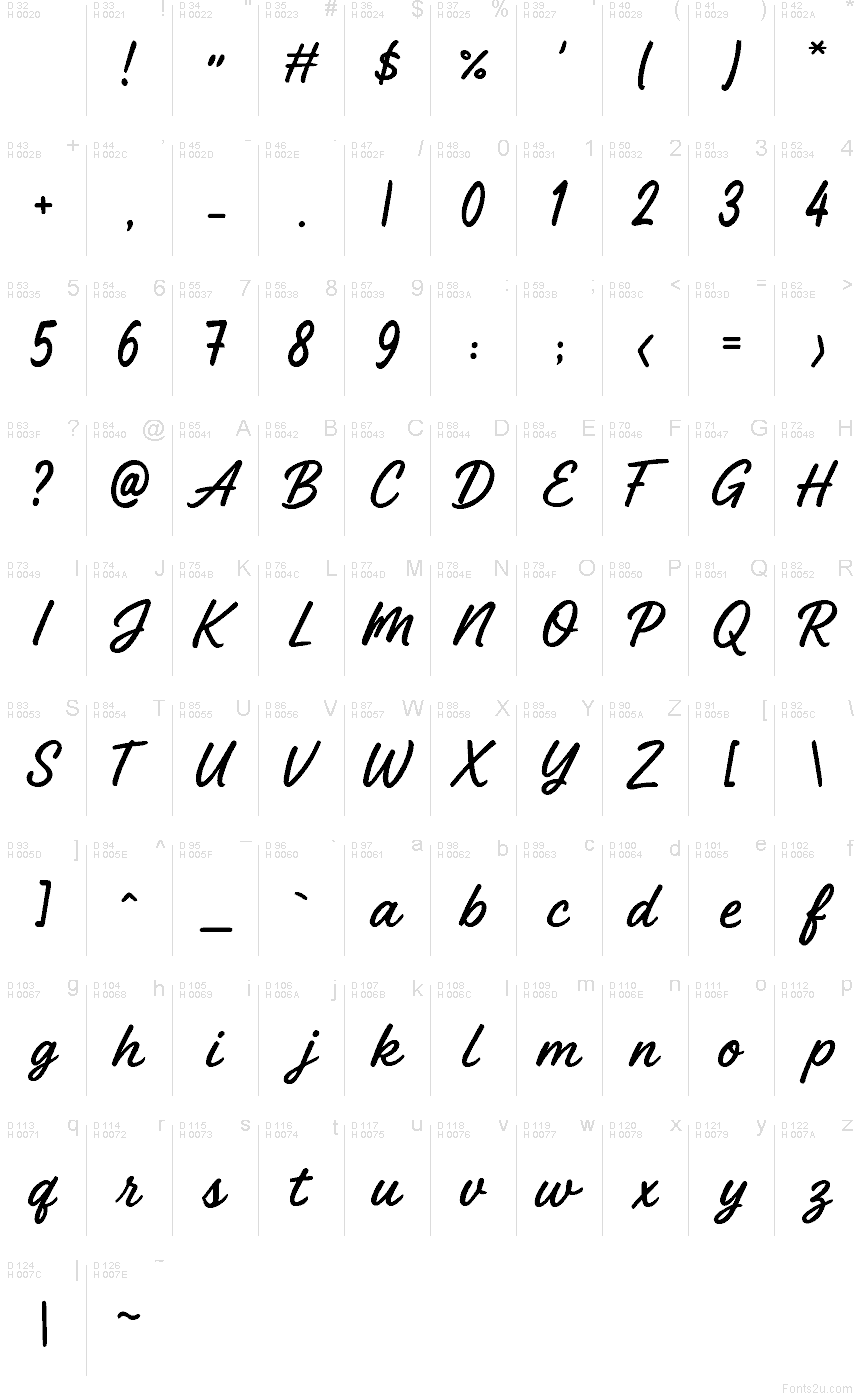
Motion and Creation
Motion and Creation font by BlackFridayFont FMF is a free brush script typeface with an easy, handwritten flow that feels like it was painted in one smooth stroke. The letters lean forward with a gentle slant, connecting in a clean, uninterrupted line that reads quickly while still feeling personal. Slight thickness shifts in the strokes keep it lively and expressive without getting messy, giving you that “hand-lettered by a pro” look straight out of the box.
Using Motion and Creation, you can bring warmth and movement to quote graphics, product packaging, logos, invitations, name badges, and social media posts. This free font shines at larger sizes where its inky curves and continuous rhythm can really breathe. Pair it with a simple geometric sans serif for body text or captions to keep layouts readable while letting the script handle all the personality.